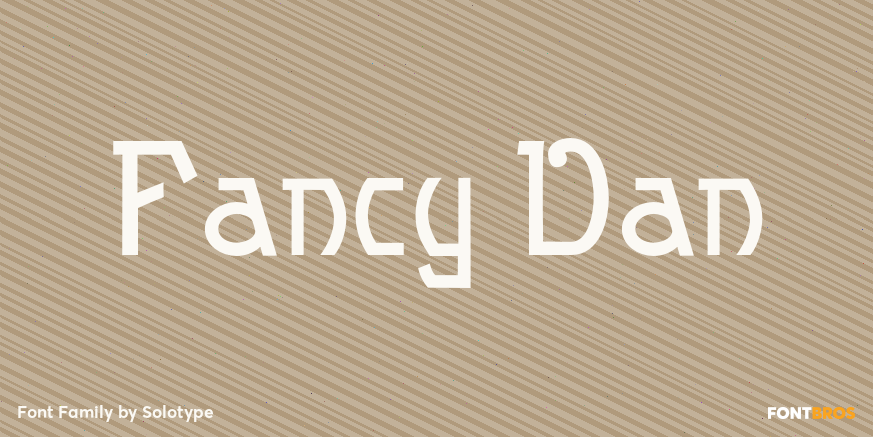
HomeFont BrosHistoricalFancy Dan Historical Fancy Dan FacebookXPinterestWhatsApp 1 of 1 About Fancy Dan We had a dozen or so letters of this, picked up at the flea market in Vienna. The rest came from our imagination.  DOWNLOAD NOW People also explored Harvest Font A Serendipity Font Schoolgirl Font Leafy Delight Font Cherrils Font Bestallie – Bold Script Font Nadir Font Honeymoon Font Farmhouse Font 271 0 TagsFancy Dan Font Previous articleEnamelNext articleAbruzzo LEAVE A REPLY Cancel reply Comment: Please enter your comment! Name:* Please enter your name here Email:* You have entered an incorrect email address! Please enter your email address here Website: Save my name, email, and website in this browser for the next time I comment. Personal Use Free Batik Classic Personal Use Free Read more about this font Zero Panzer Personal Use Free Read more about this font December Christmas Personal Use Free Read more about this font Nugo Sans Personal Use Free Read more about this font BLOG Best Fonts for T-Shirt Design – Top 2025 Picks In 2025, t-shirt design has become more than just fashion—it's a form of self-expression. Whether you're... Top 7 Google Fonts Alternatives for Faster and Privacy-Friendly Web Design (2025) Free Fonts Risk: Why Free Fonts Can Be Dangerous for Designers Elegant Wedding Invitation Fonts – Handwritten & Script Fonts